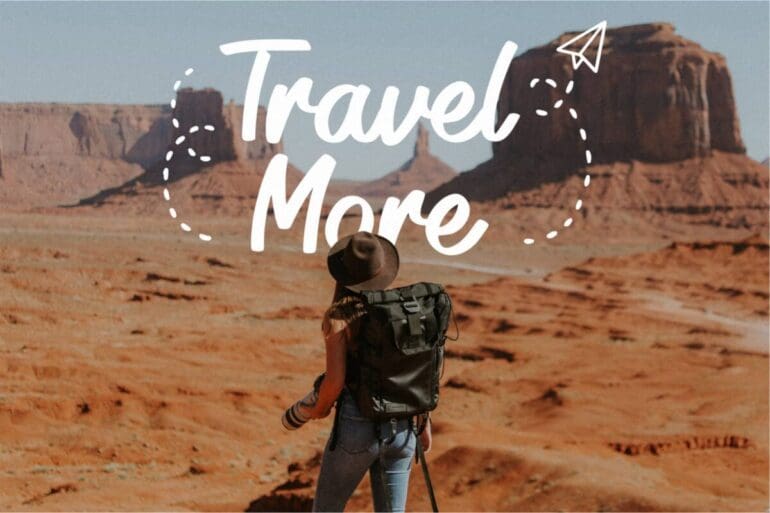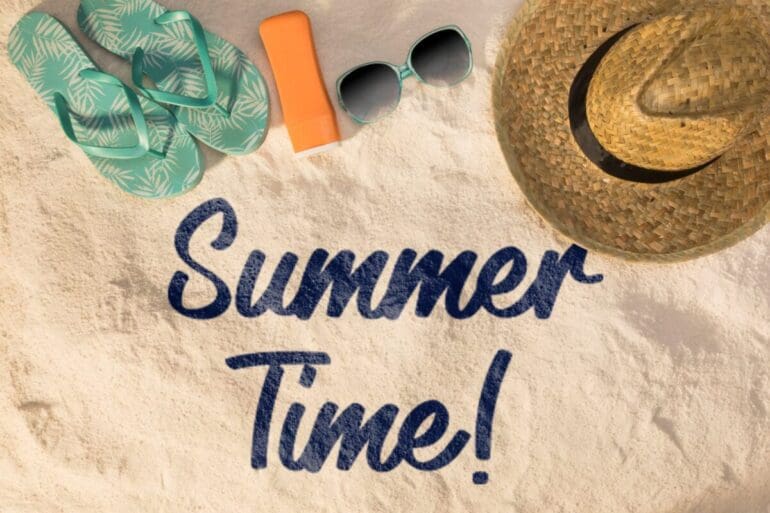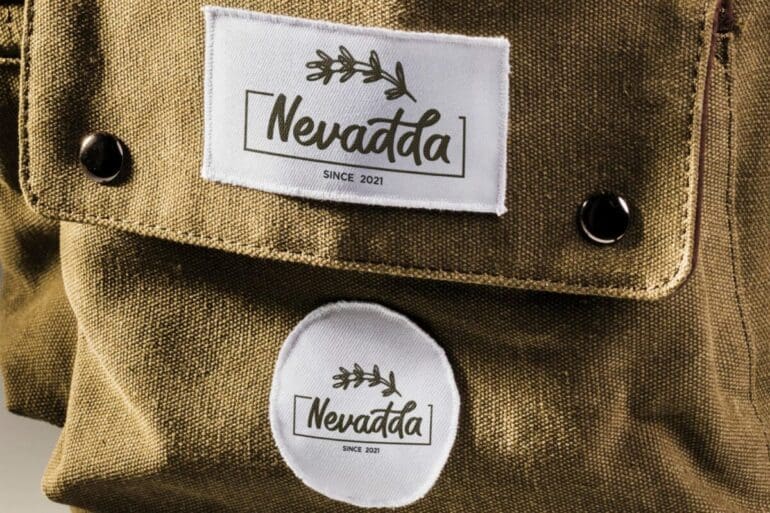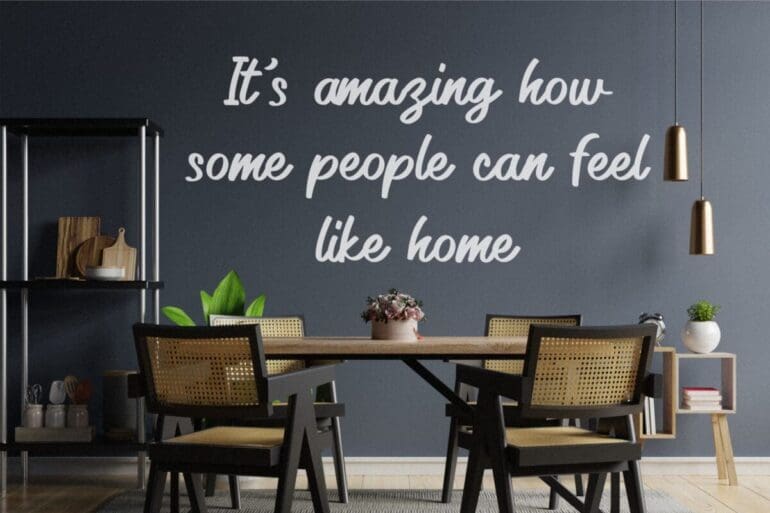
Legendday Font
Legendday is a delicate, elegant and flowing handwritten font. It has beautiful and well balanced characters and as a result, it matches a wide pool of designs. Add it to your most creative ideas and notice how it makes them come alive!